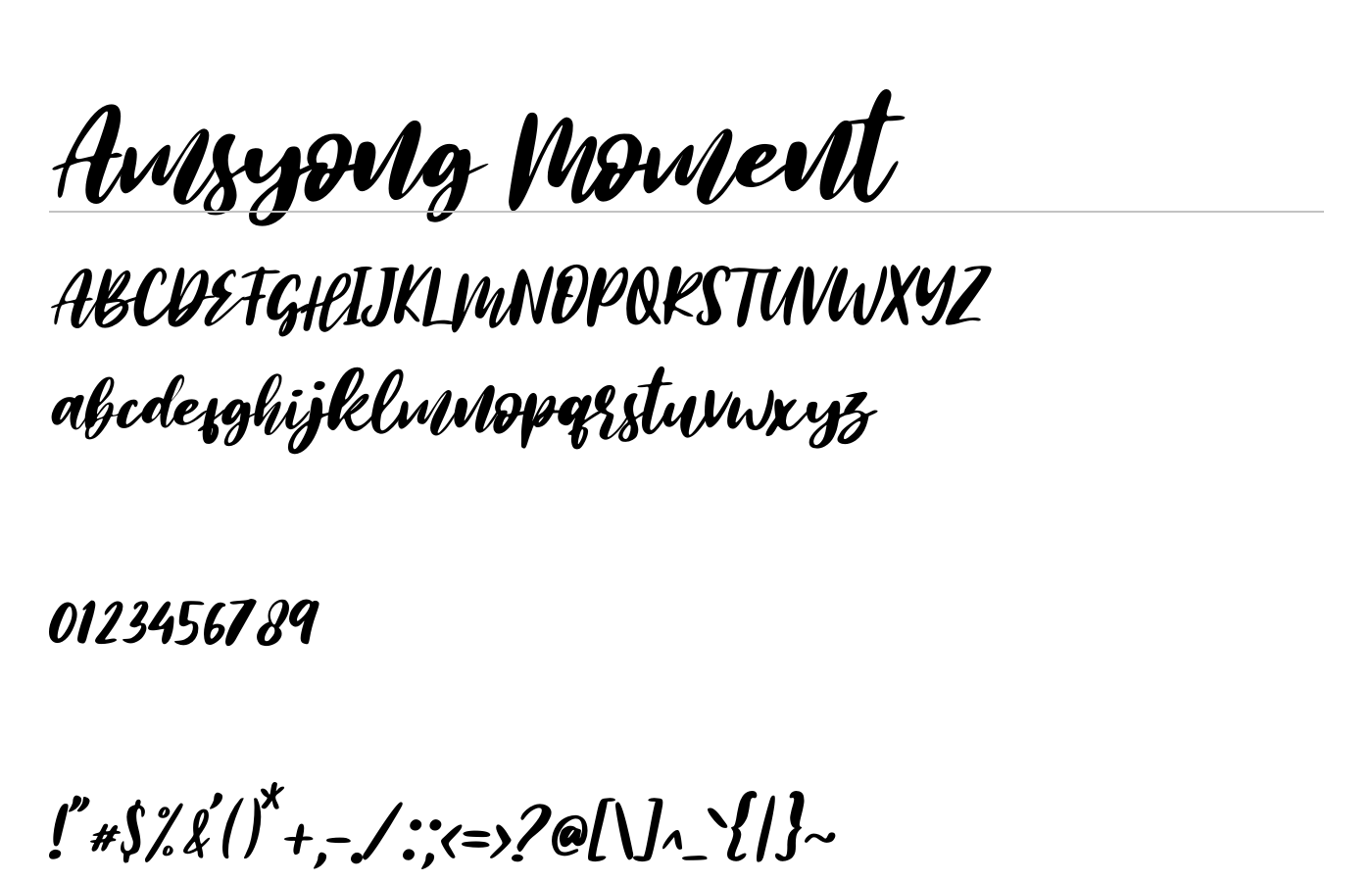
Amsyong Moment is a lively and expressive script font with bold, fluid strokes and a natural handwritten feel. Its slightly condensed, brush-style letterforms bring warmth and a personal touch, making it ideal for creative branding, invitations, and eye-catching headlines. This font works well where a friendly, artistic vibe is desired, adding a sense of energy and charm to any design.
Amsyong Moment Font
About Amsyong Moment Font
| Font family | Amsyong Moment Font |
| Designer | Arief Tri Sulistiyono |
| Trademark | Supersemar Letter |